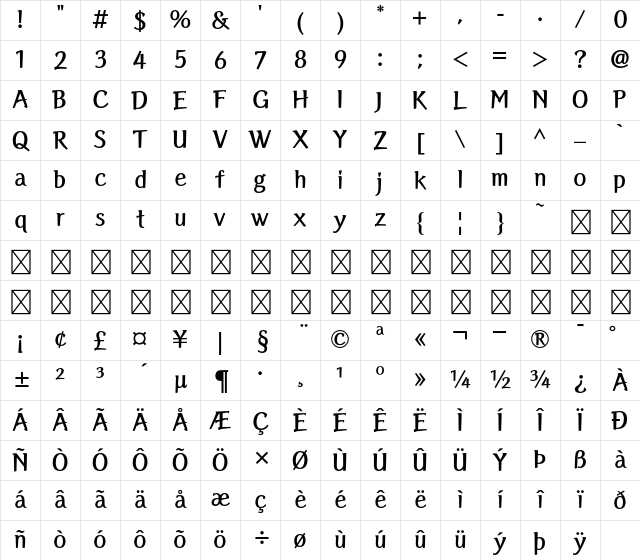
A-OTF Moaria Std B
Style: B
Designer: Kazuo Kanai
Complete A-OTF Moaria Std B glyph index. Displaying only characters natively supported by A-OTF Moaria Std B font.
Design Context for A-OTF Moaria Std
A-OTF Moaria Std is a composed and adaptable typeface that performs quietly and consistently across a wide range of design contexts.